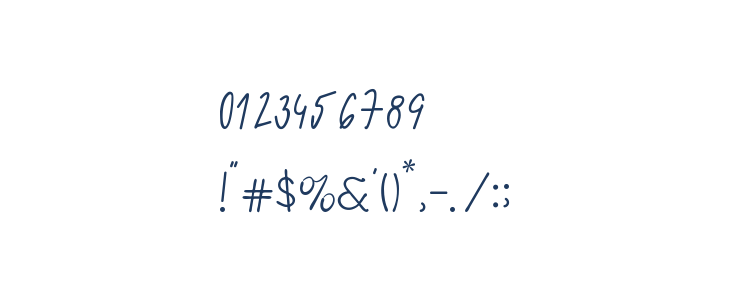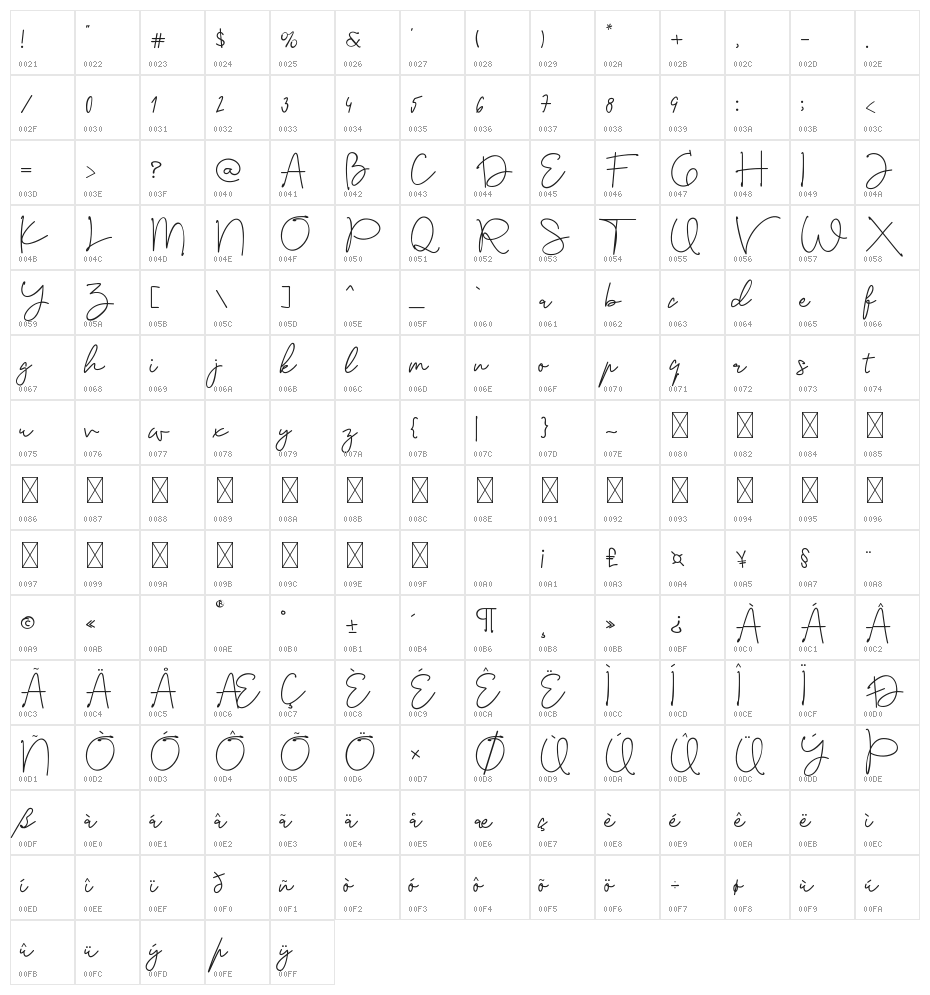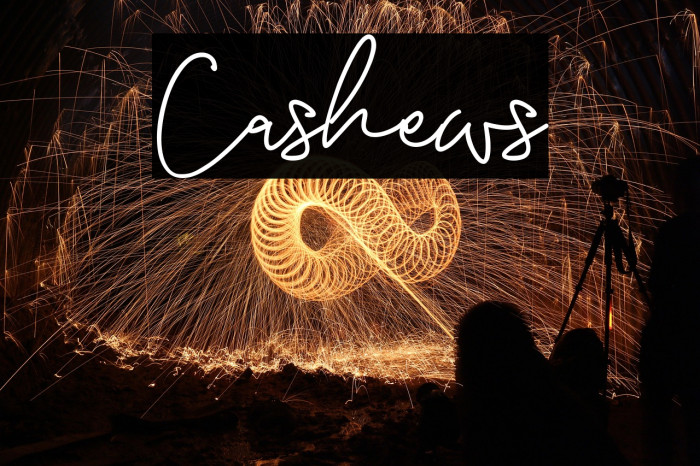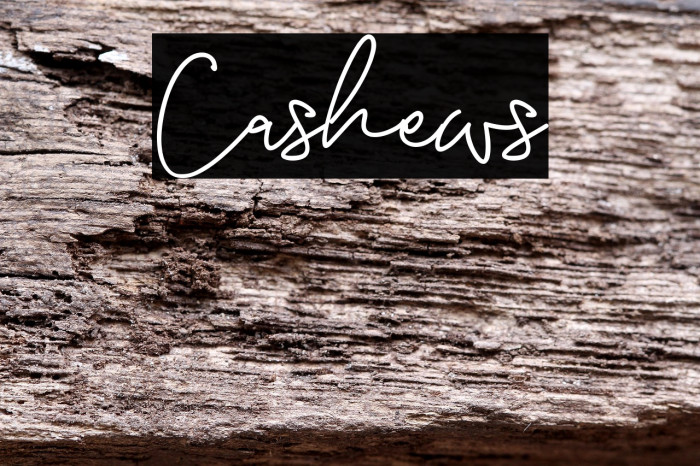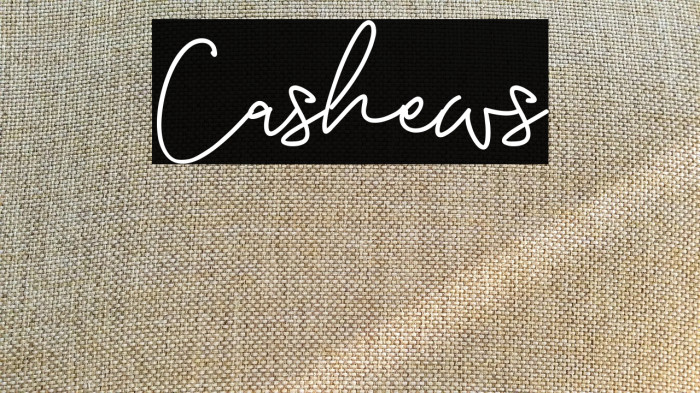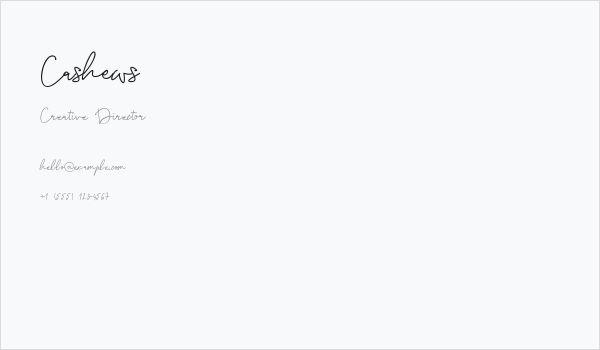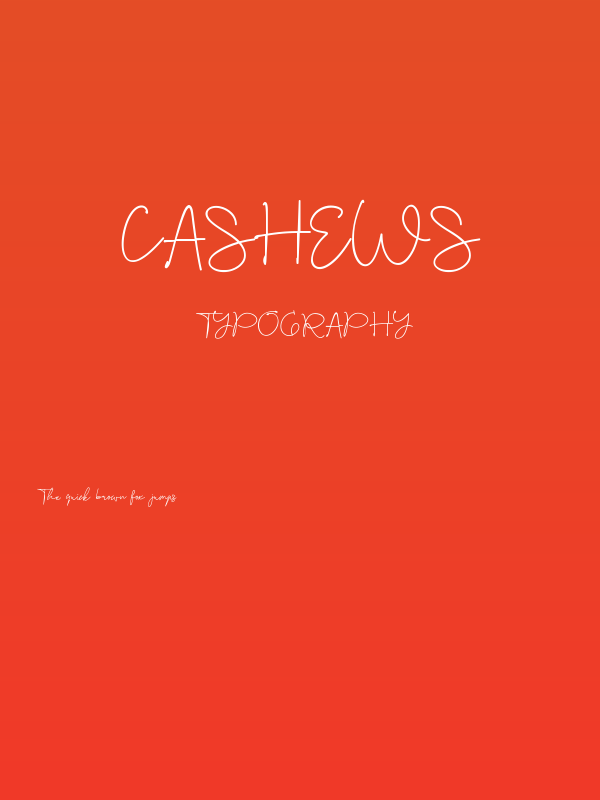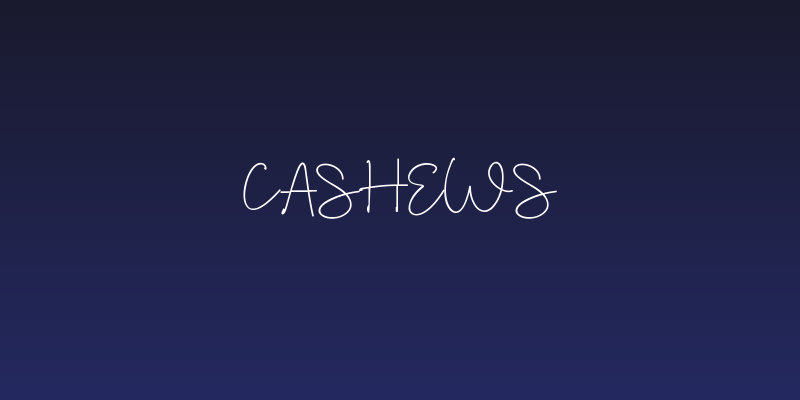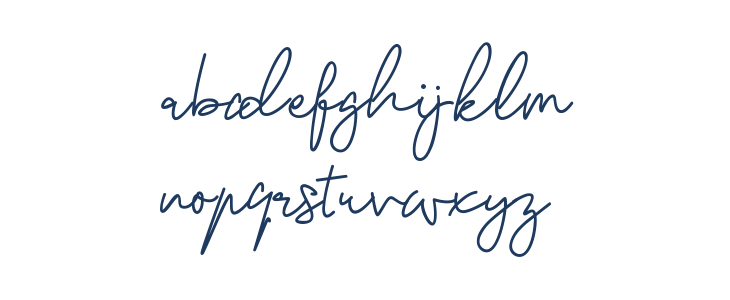
Cashews Font
Cashews Description
This font features a playful and casual handwritten style, characterized by its flowing and interconnected letterforms. The uppercase letters are tall and narrow, with a slight slant that adds a dynamic feel. The lowercase letters maintain a consistent flow, with rounded edges and a smooth, cursive appearance. Numbers and special characters follow the same style, ensuring a cohesive look across all text. The overall design is informal yet elegant, making it suitable for creative projects that require a personal touch.
| Use Case | Logos, Invitations, Social Media Graphics |
| Proposed Projects | Ideal for greeting cards, invitations, personal branding, and creative social media graphics. |